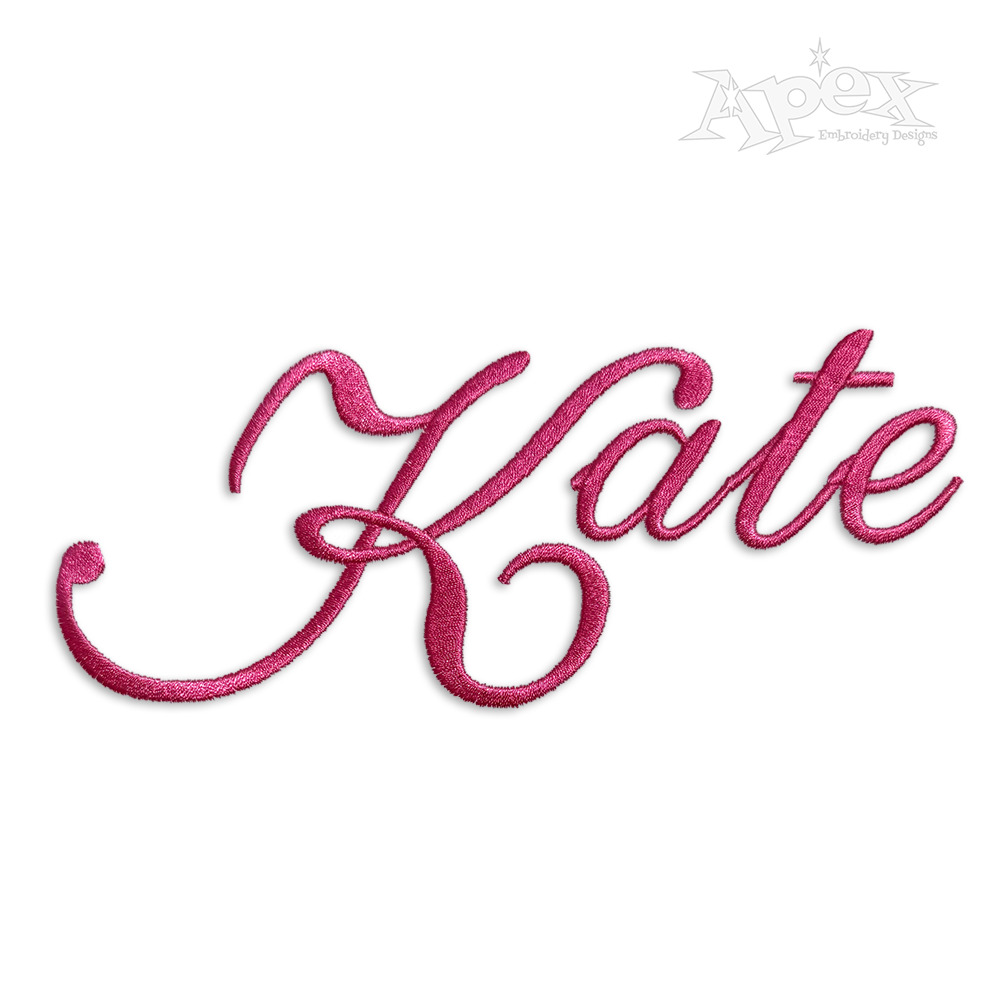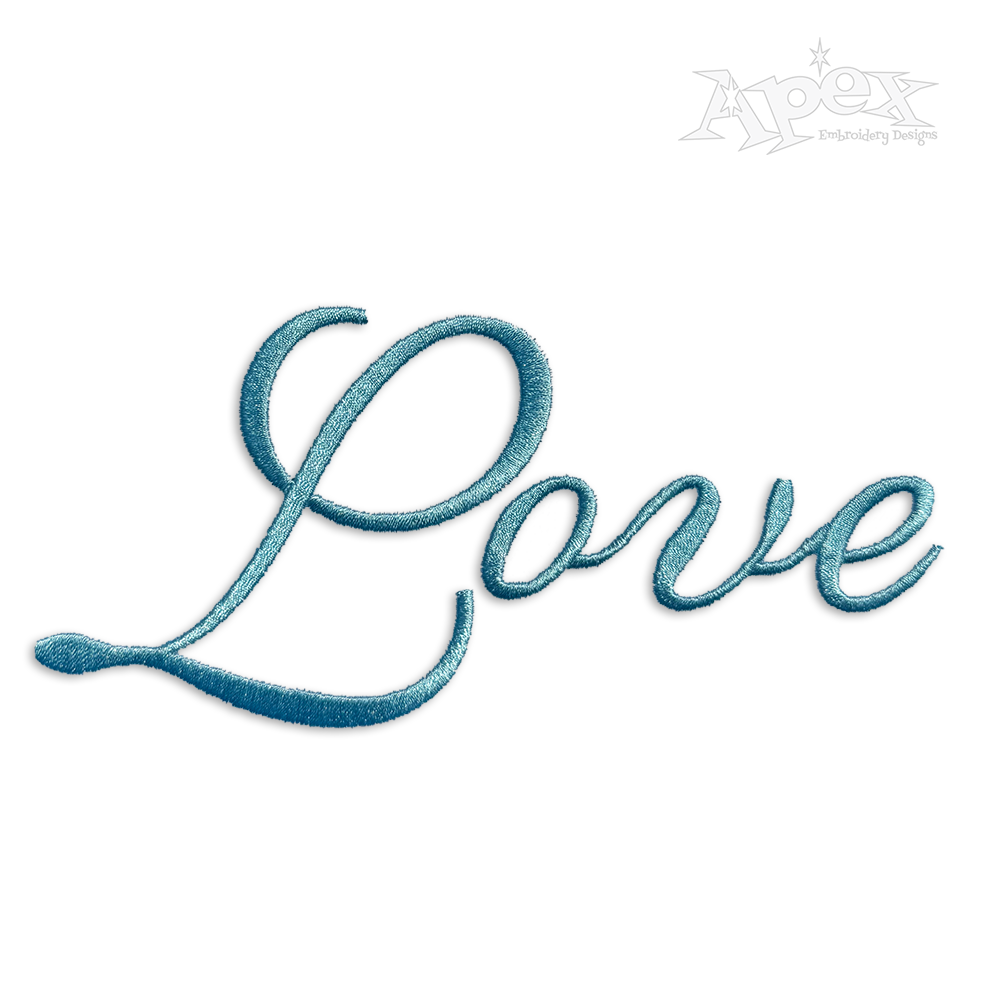
Roatan Embroidery Font
Named after the sun-drenched, tranquil shores of the Caribbean, the Roatan Embroidery Font was born from a desire to capture breezy coastal elegance in thread. At Apex Embroidery Designs, we wanted to break away from rigid, predictable letterforms and craft a typography suite that feels organic, sunlit, and undeniably distinctive. Each character carries a relaxed yet polished rhythm, turning ordinary textiles into heirloom pieces evocative of high-end seaside villas, bespoke resort wear, and barefoot luxury.
Roatan Embroidery Font Craft & Letterform Details
What makes the Roatan Embroidery Font truly exceptional is its masterfully balanced architecture. Rather than relying on uniform, mechanical lines, our digitizers sculpted each letterform with gentle, swelling curves and soft terminal tapers that emulate fluid hand calligraphy. Every satin stitch path is manually angled to catch and refract ambient light, infusing rayon and polyester threads with a shimmering, dimensional luster.
Behind the scenes, the foundation underlay has been meticulously engineered to cushion the top satin columns without adding unwanted bulk or stiffness to the fabric. Gentle entry points, deliberate pull compensation, and clean travel stitches eliminate puckering even on fine linens and lightweight textiles. The resulting embroidery delivers a velvety, rich density that feels luxurious to the touch and commands attention with its distinctive coastal personality.